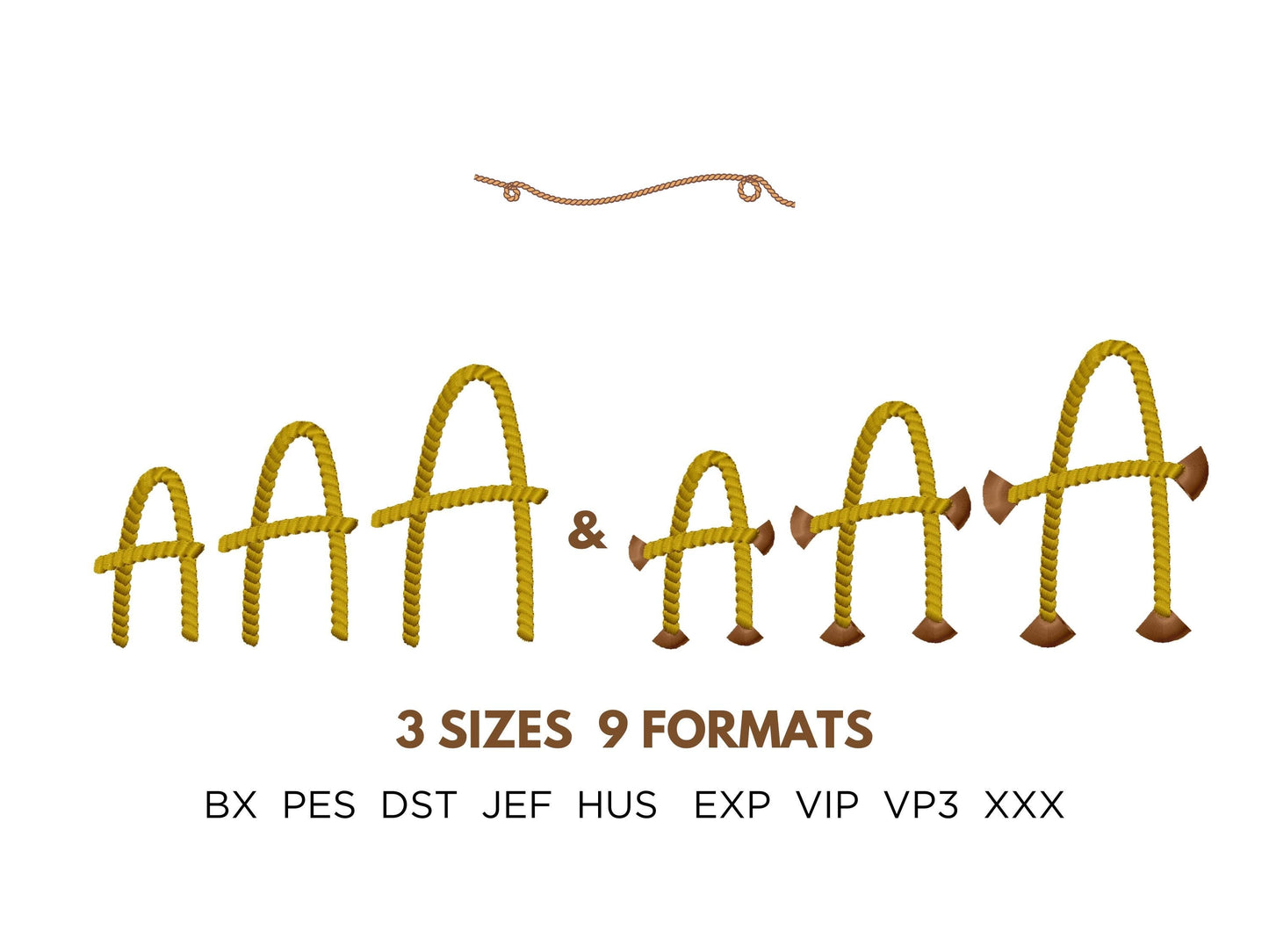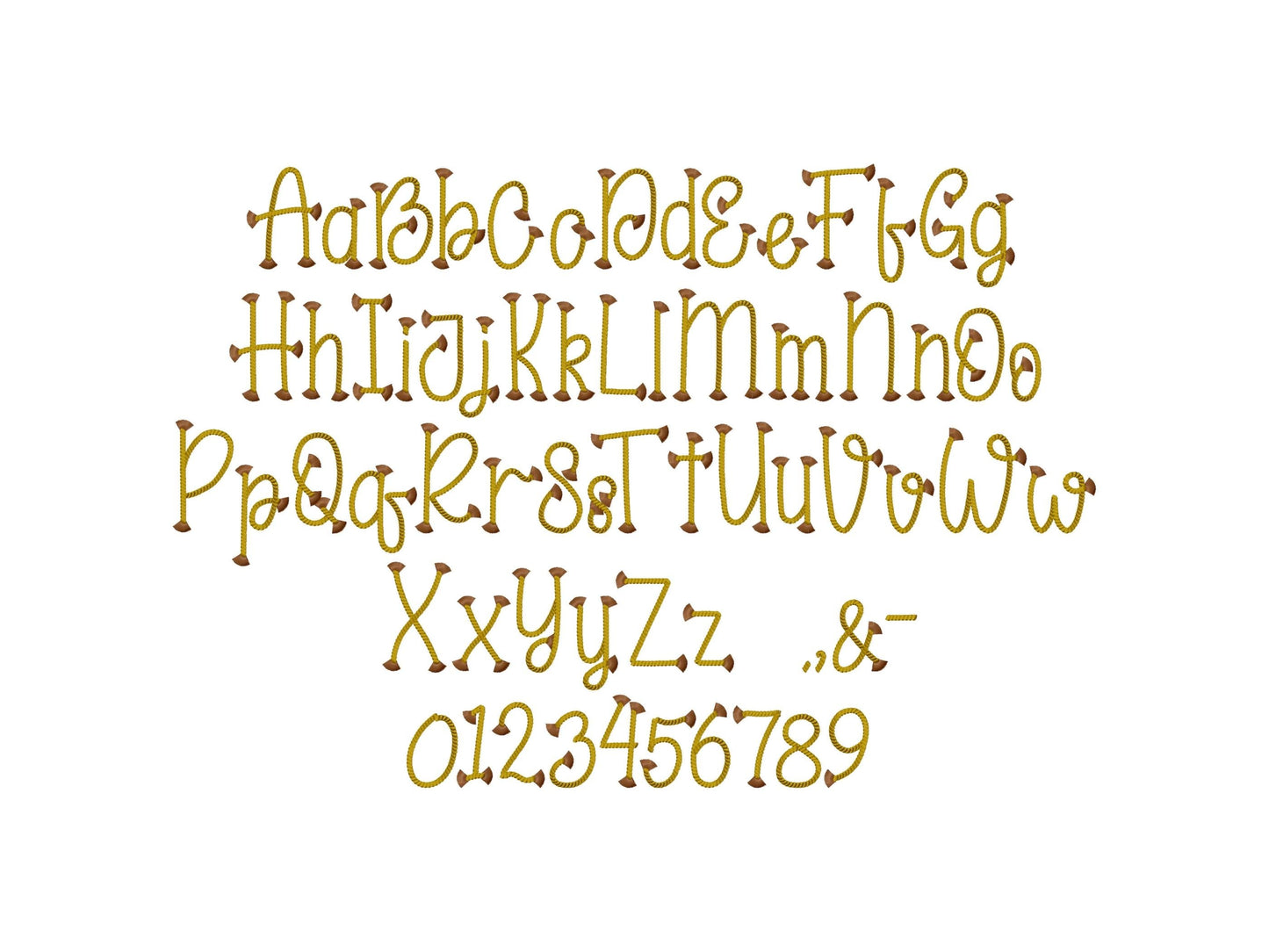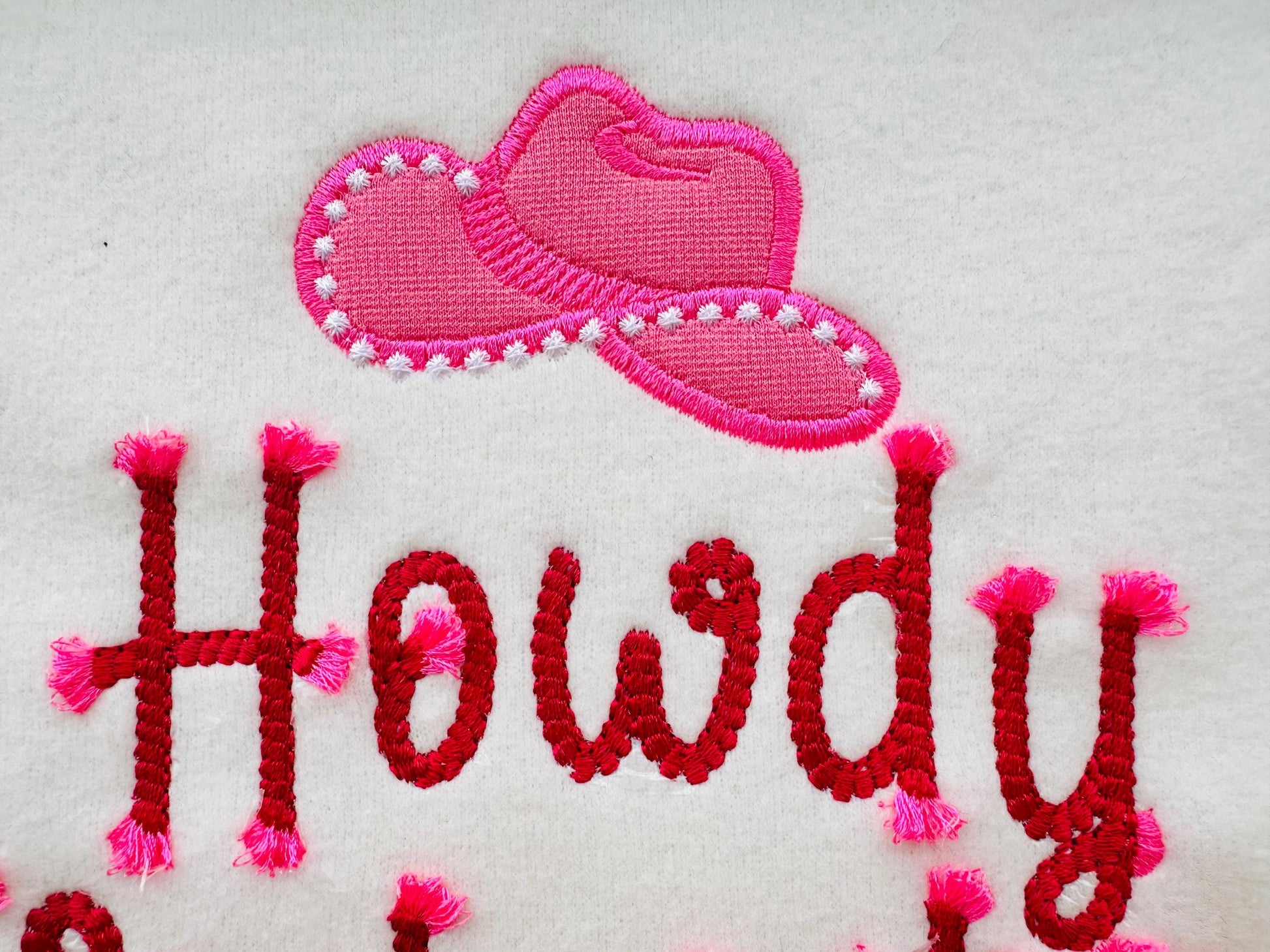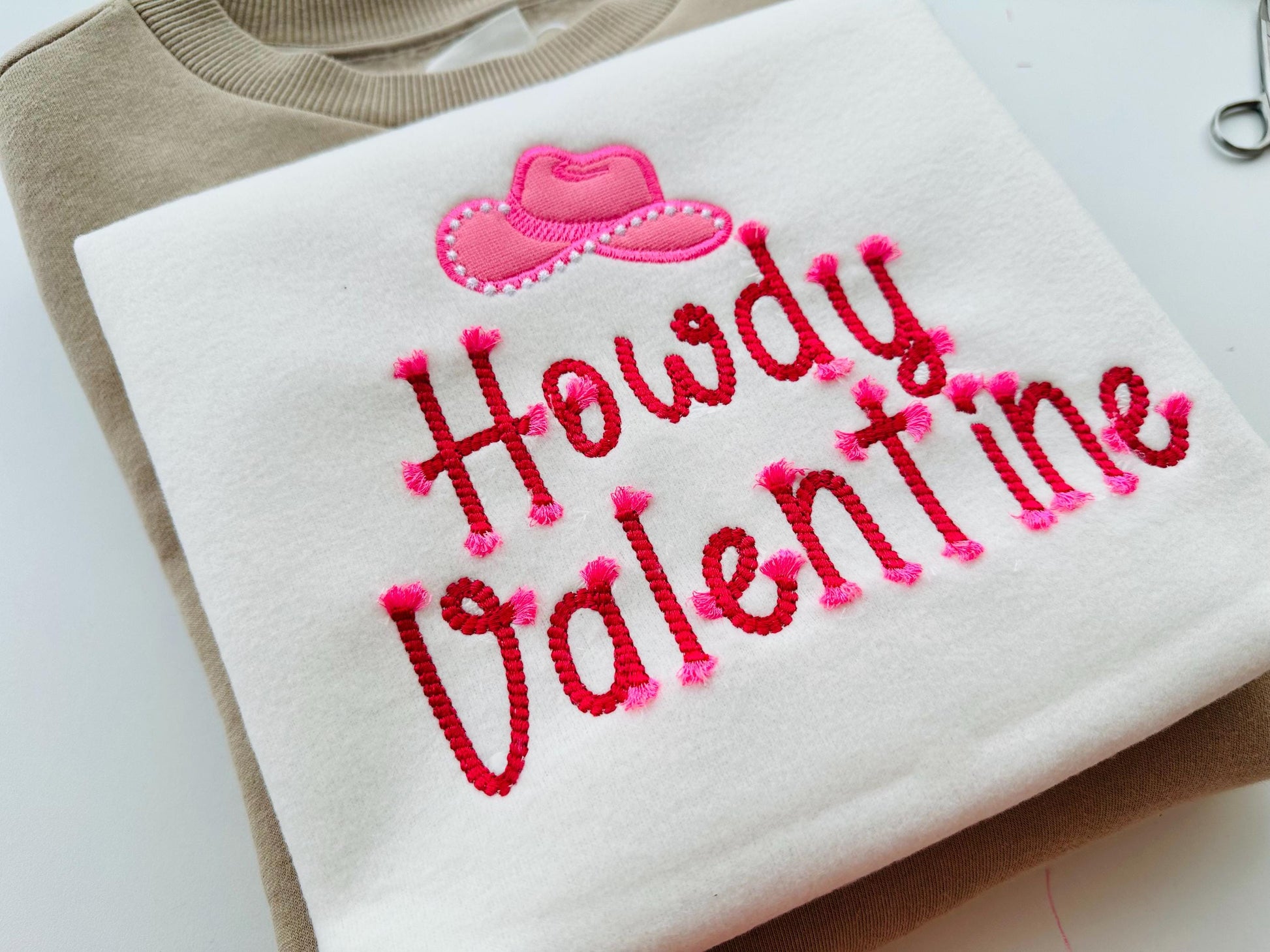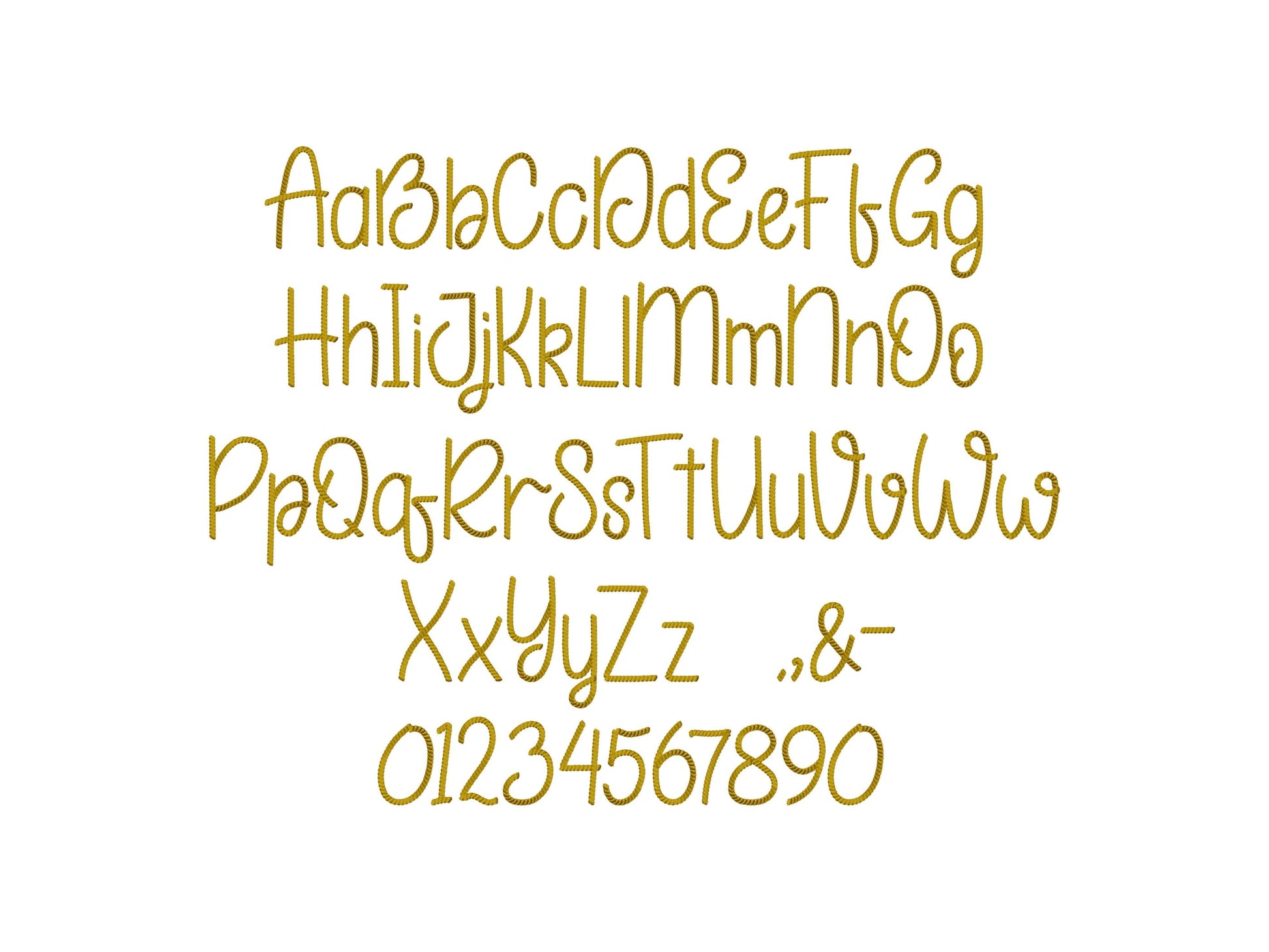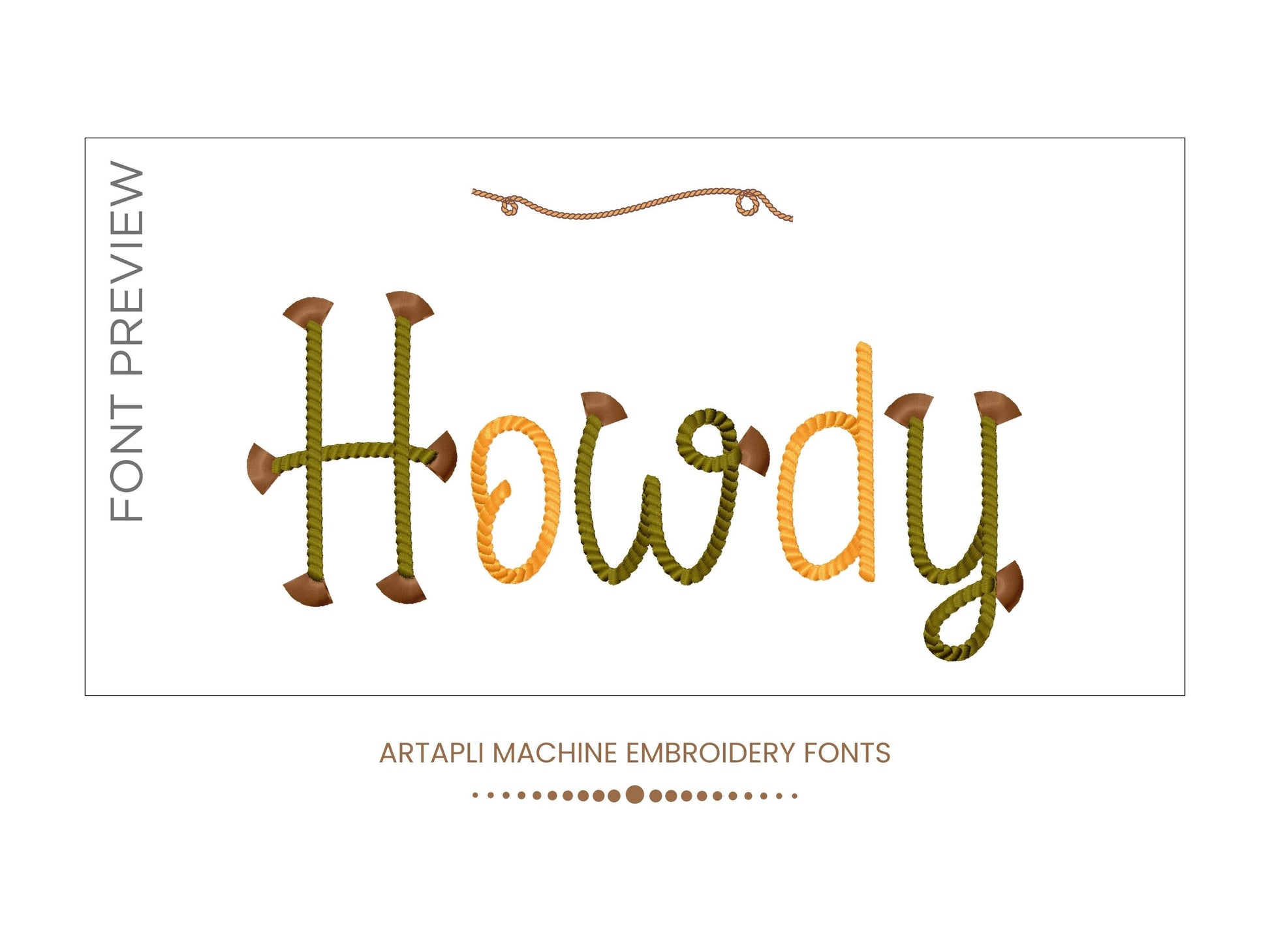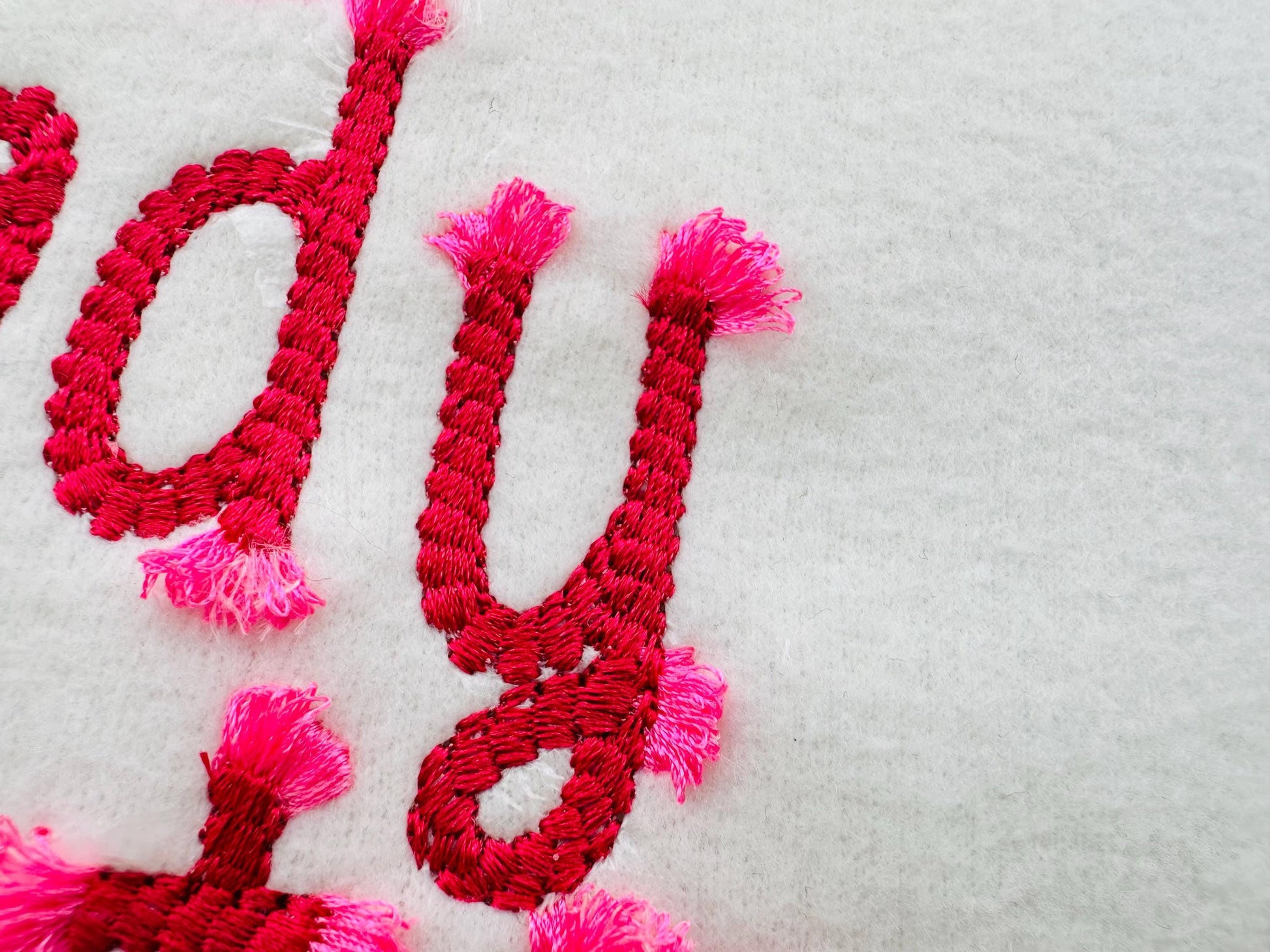
Fringed Rope Stitch Font Set of 2
Or click to open the linkTwo western rope stitch fonts in one set: a plain rope font and a matching font with fringed tassel ends. Fun for cowboy and cowgirl shirts, kids' names and rodeo gear.
Both fonts have uppercase and lowercase letters, numbers 0 to 9 and punctuation, in three sizes: 2, 2.5 and 3 inches. A cowboy hat add-on comes in 2.5, 3, 3.5, 4 and 5 inches.
- Plain rope stitch font and fringed tassel rope font
- Uppercase and lowercase letters, numbers 0-9, punctuation
- Letters 2, 2.5 and 3 in; cowboy hat add-on 2.5 to 5 in